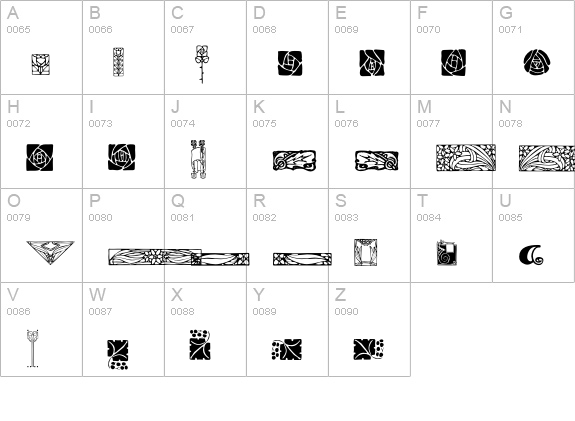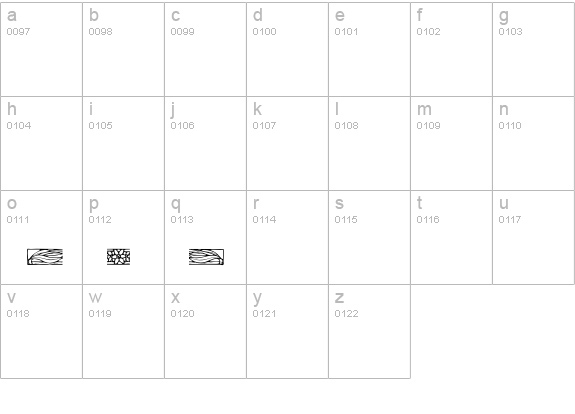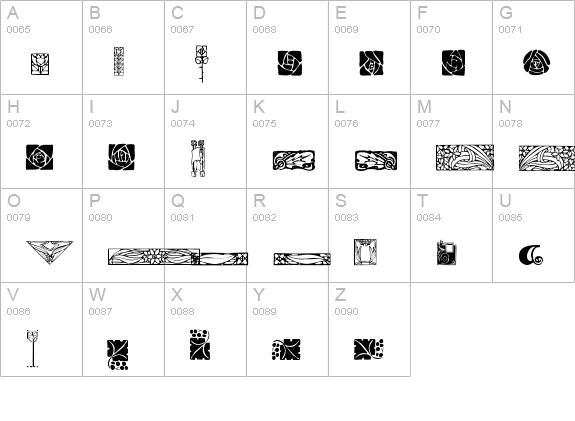
ArtsAndCrafts-Ornaments Font Details
ArtsAndCrafts-Ornaments font is a charming and whimsical typeface that exudes creativity and artistic flair. With its intricate and detailed design, this font is perfect for adding a touch of handmade charm to your projects. The ornate ornaments and decorative elements make it ideal for creating beautiful invitations, greeting cards, and other artistic designs. What makes ArtsAndCrafts-Ornaments font even more special is that it is available for free download at FontsMarket.com. This means you can easily access this unique font and use it in your projects without any cost. Embrace the beauty and creativity of ArtsAndCrafts-Ornaments font and elevate your designs to a whole new level.